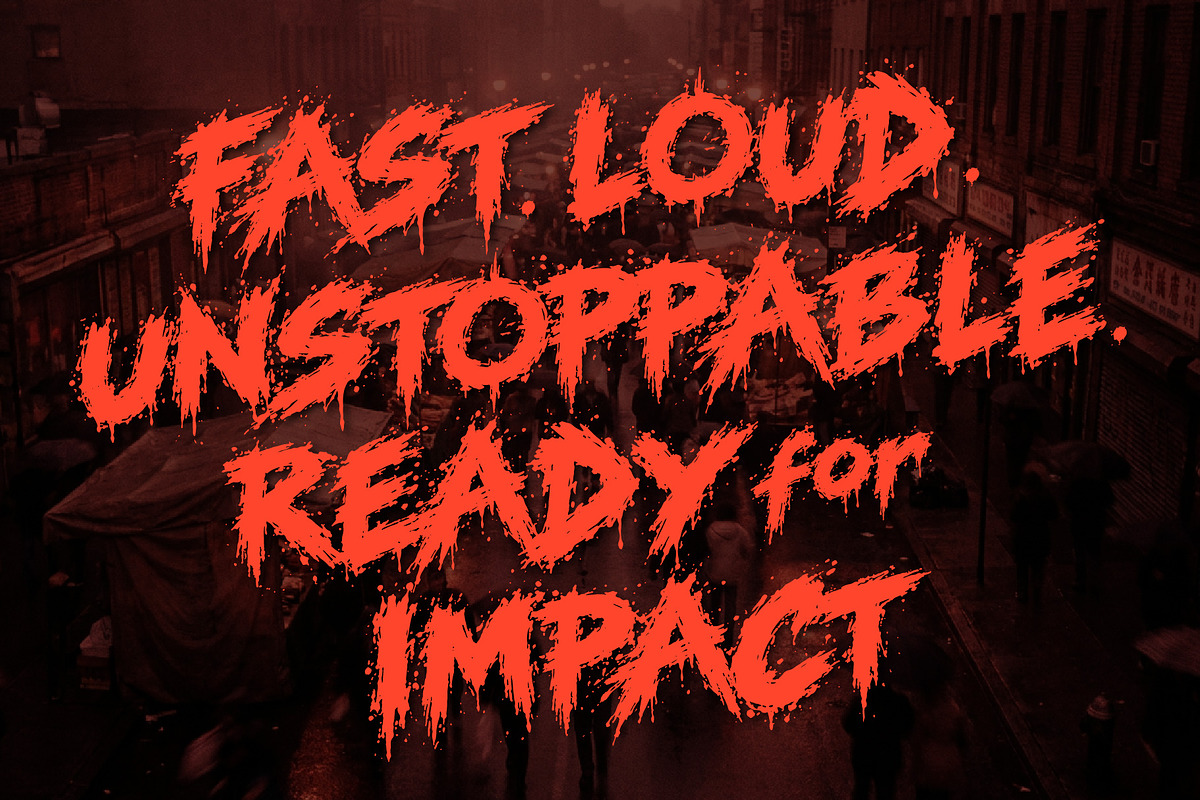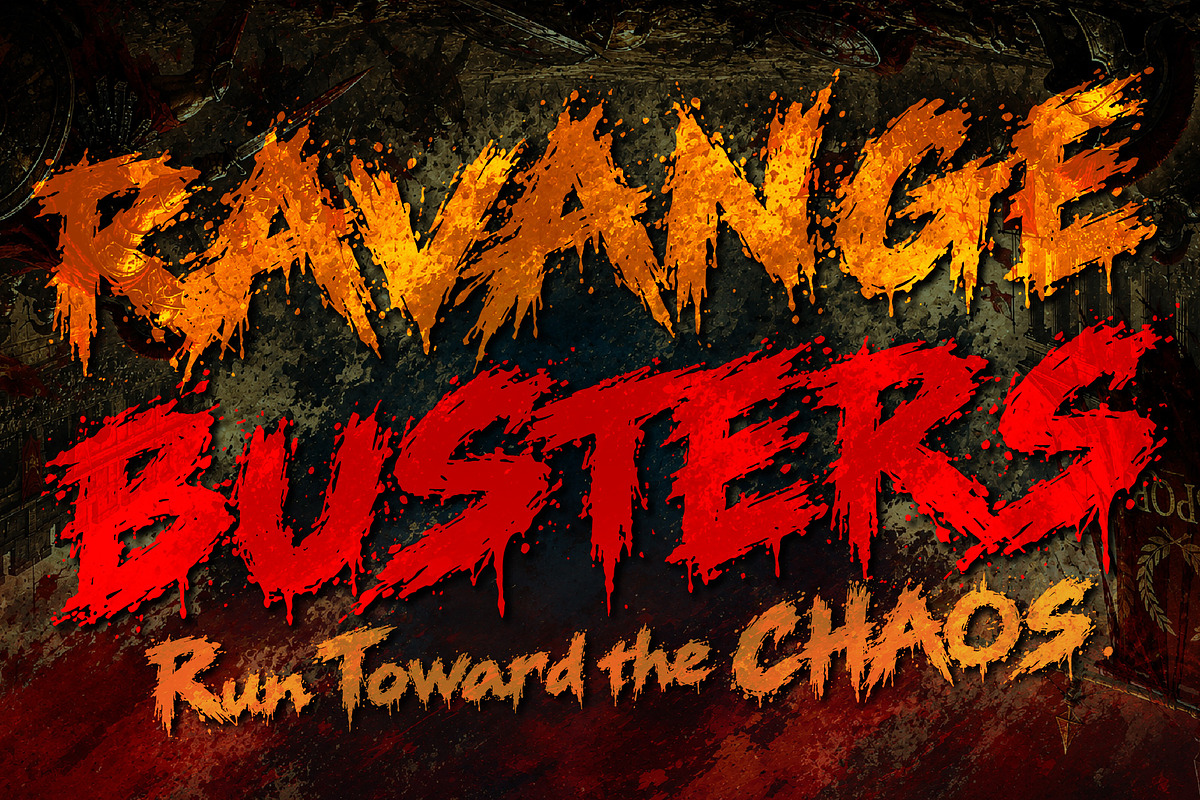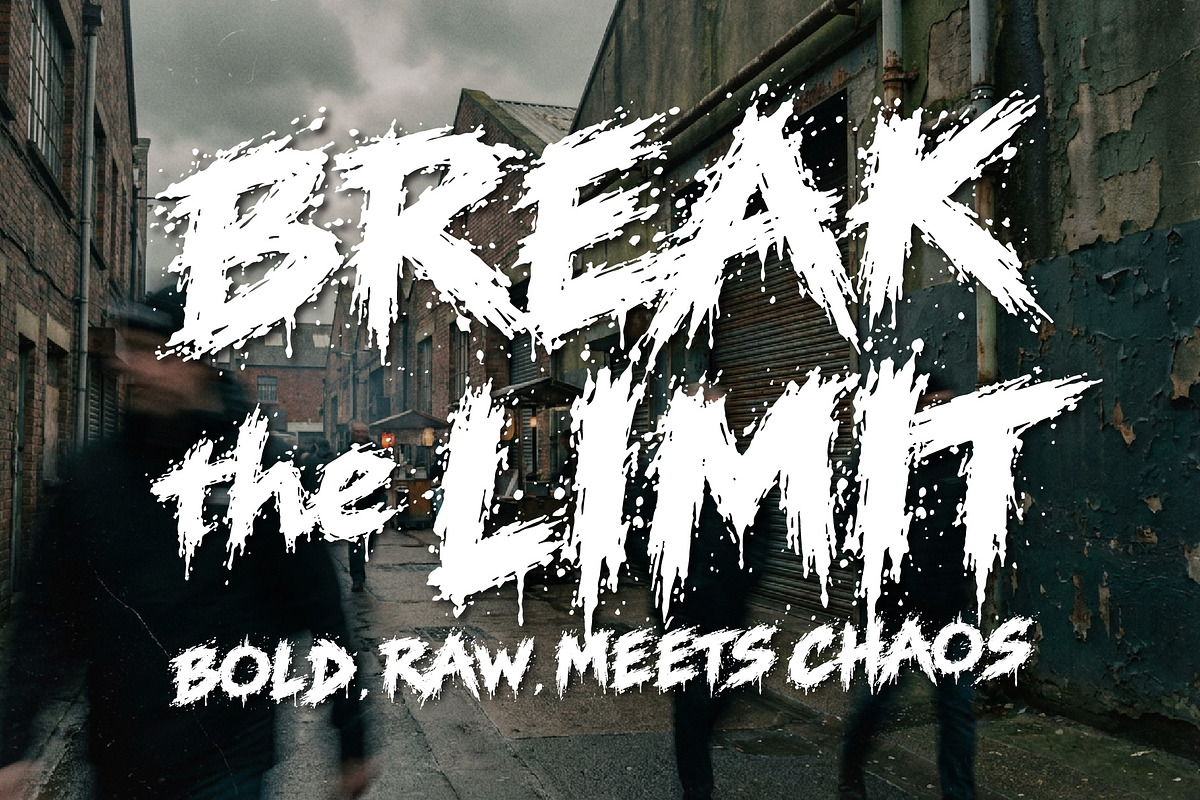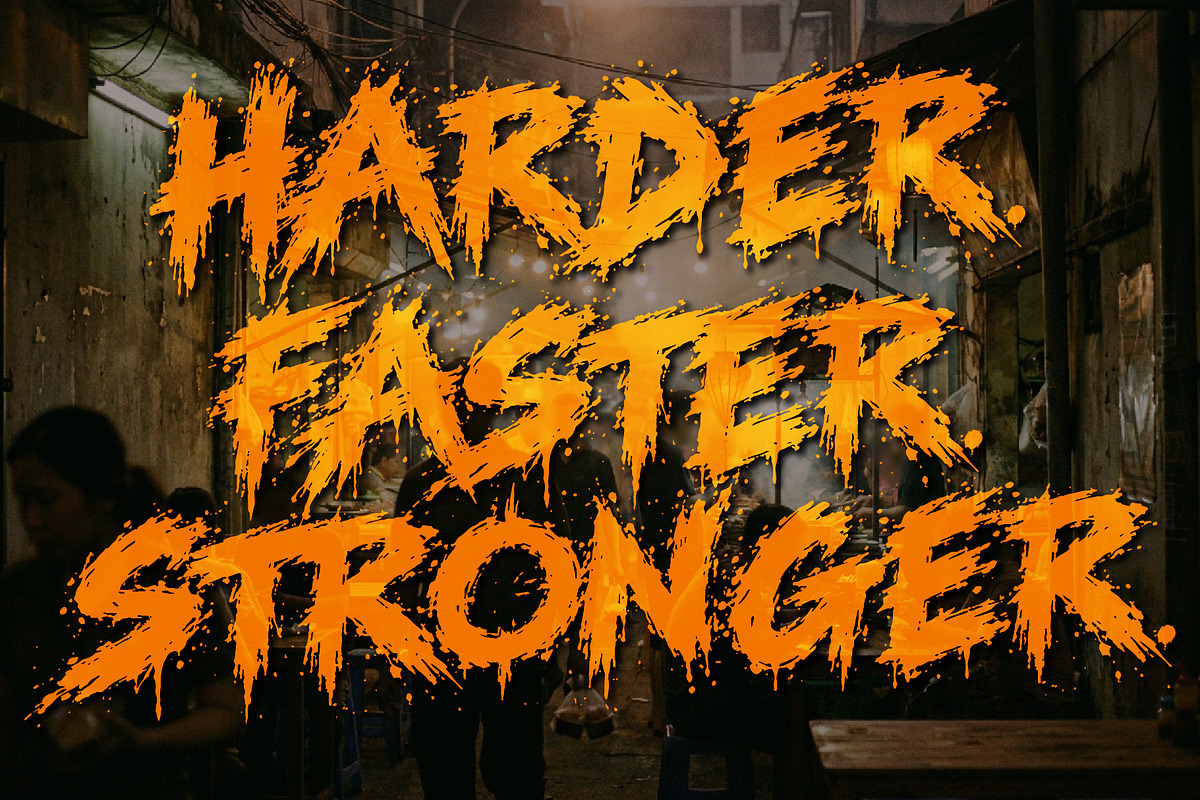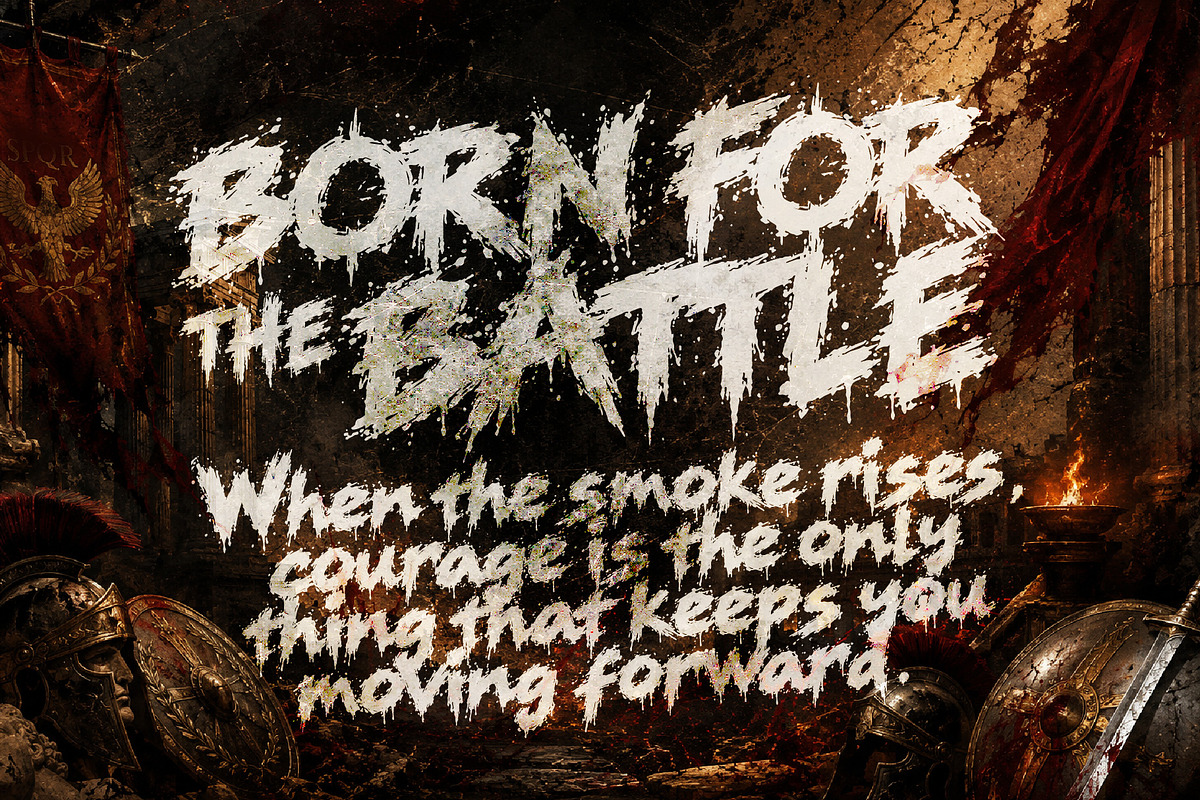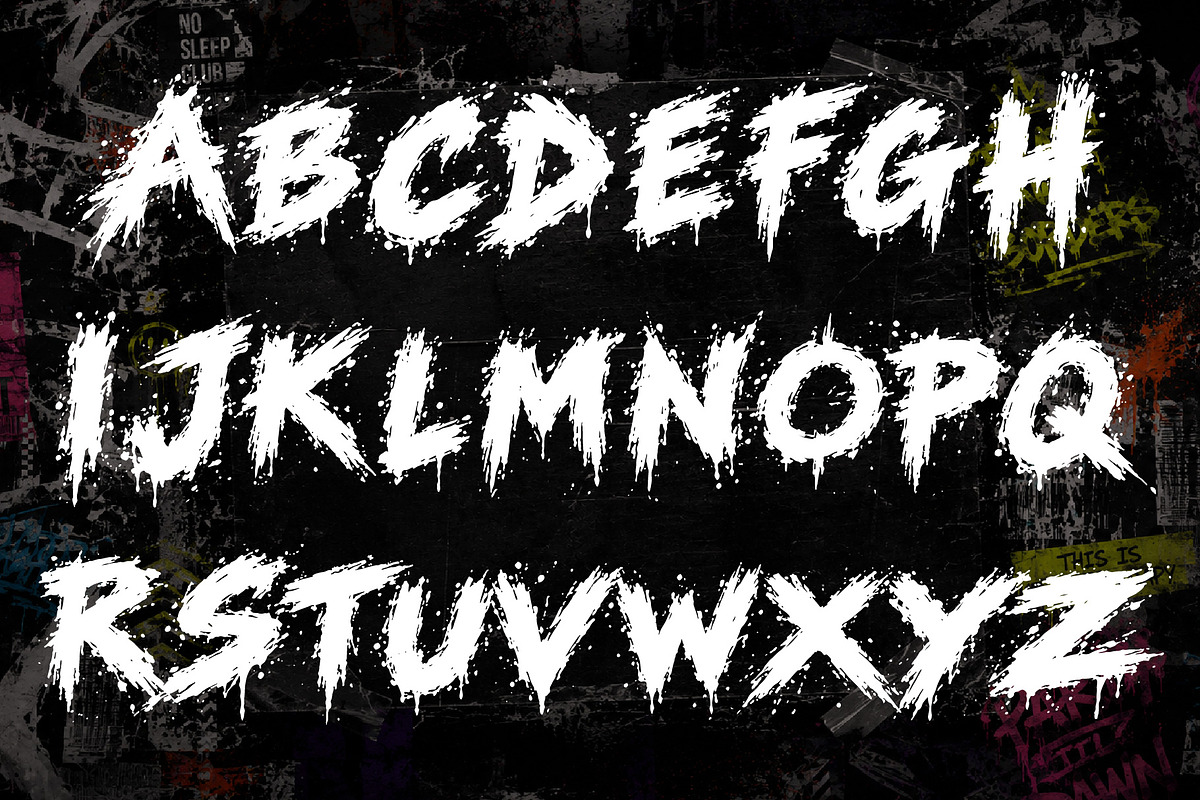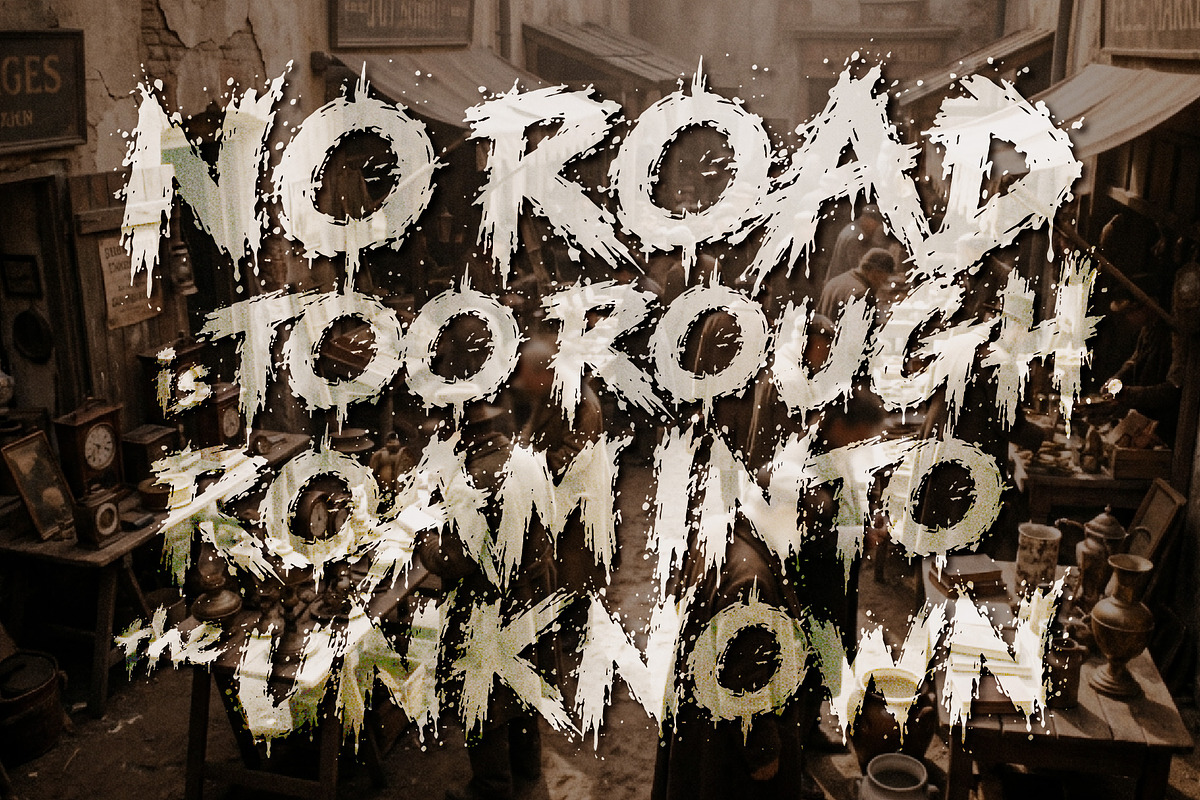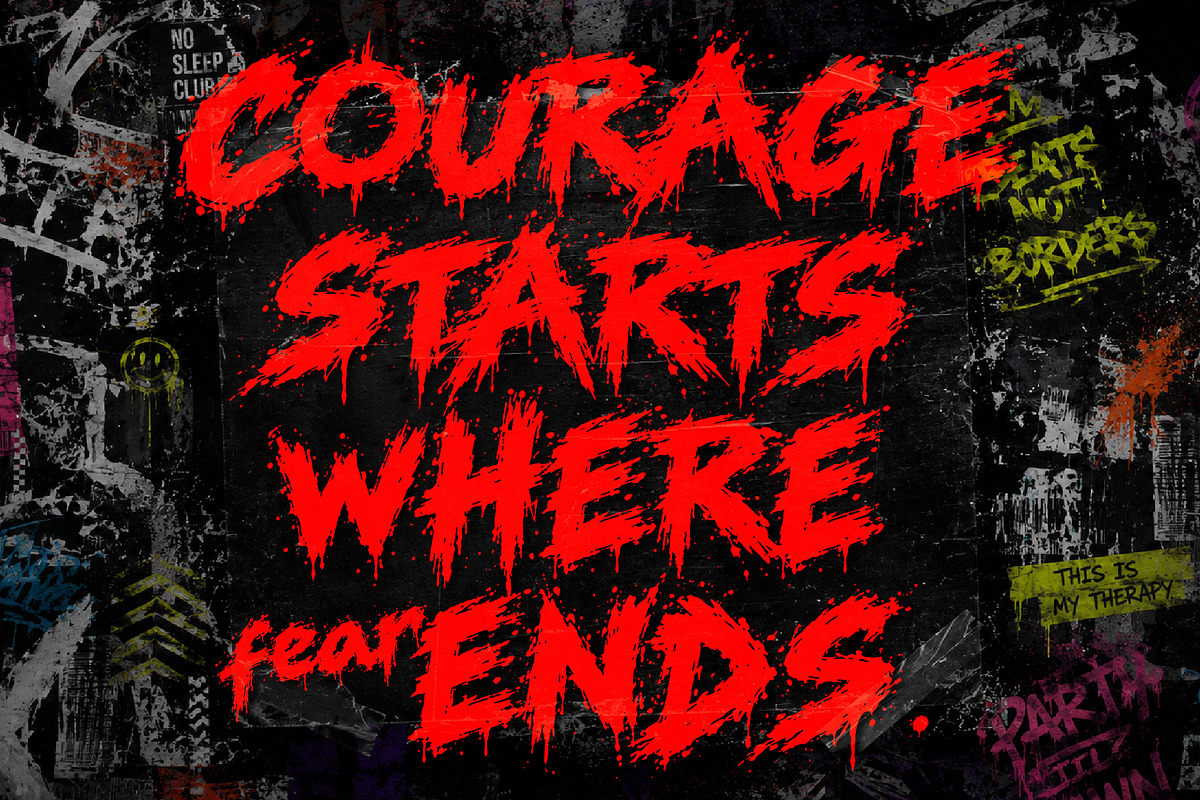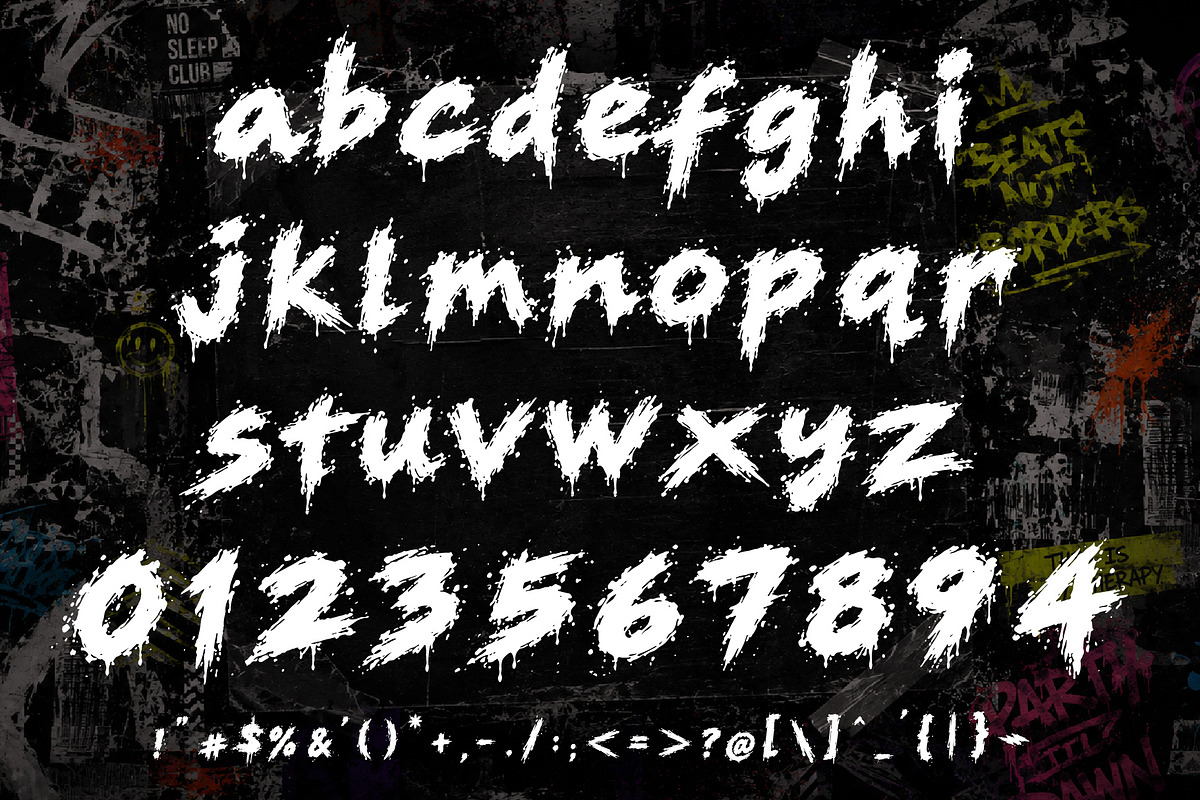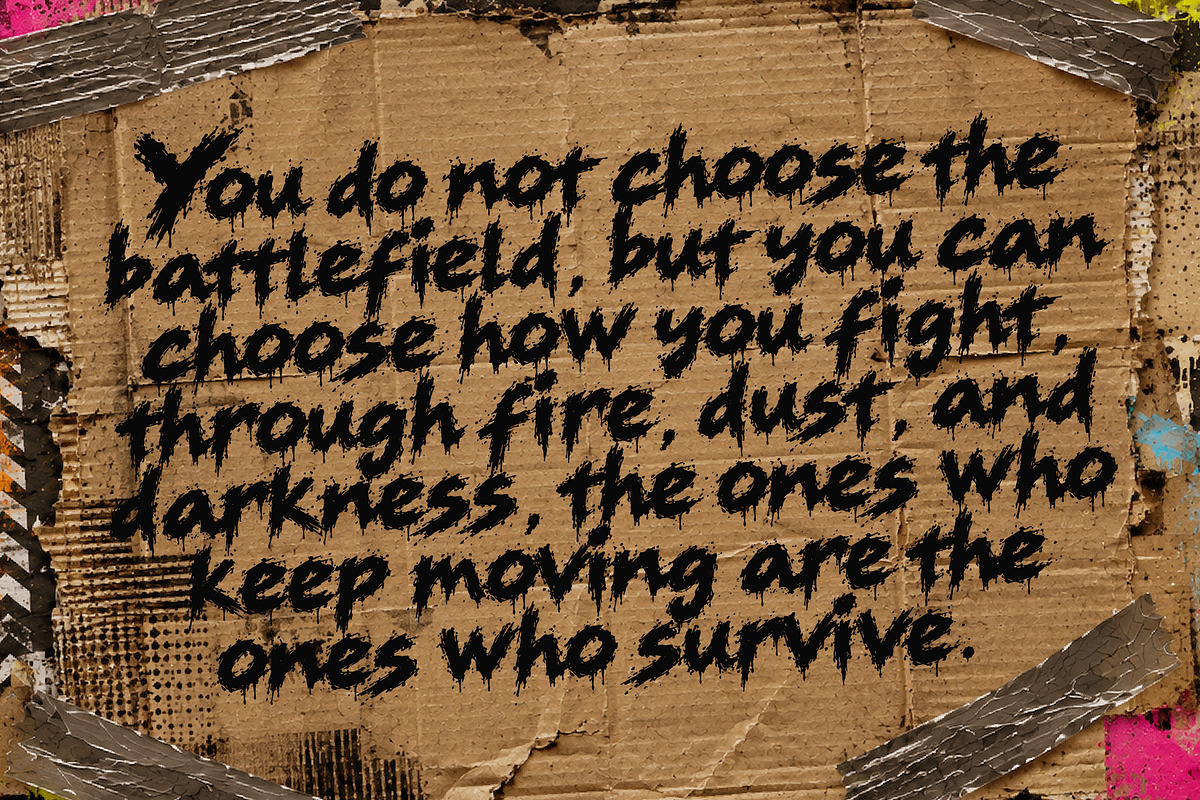
RAVANGE BUSTERS - Bold Grunge Chaos
RAVANGE BUSTERS is a rough bold grunge brush font built for speed, impact, and chaos. Its irregular strokes, aggressive texture, and hand-drawn movement create a raw thriller-action character that feels loud, wild, and ready to strike.
Made for war inspired artwork, action posters, extreme sports, racing graphics, streetwear, gaming, music artwork, and cinematic titles. The distressed brush texture gives every word a sense of motion and tension, while the chaotic edges keep the design far from clean and predictable.
Use RAVANGE BUSTERS when your design needs to feel fast, fearless, rebellious, and full of adrenaline from battle scenes and sports campaigns to racing, fight posters, merchandise, and high-energy branding.